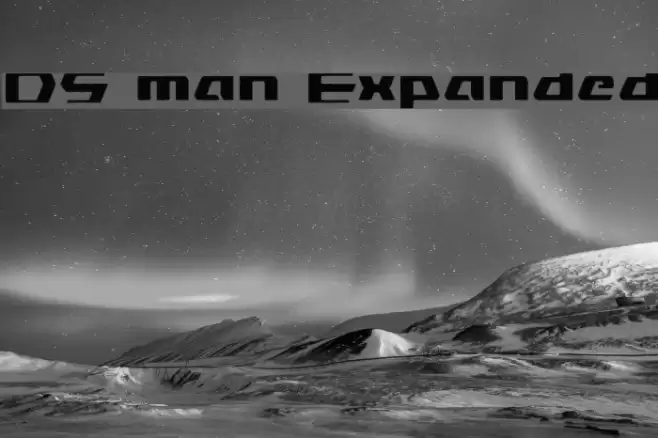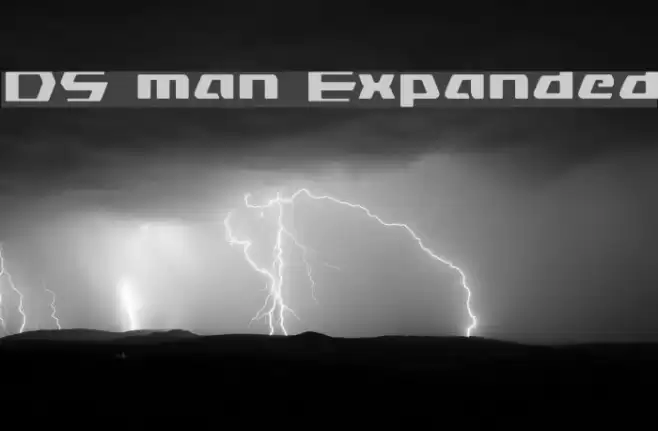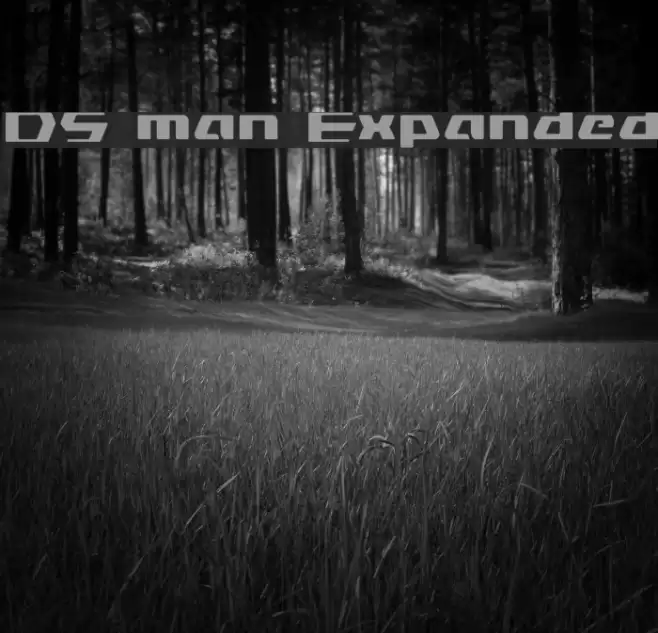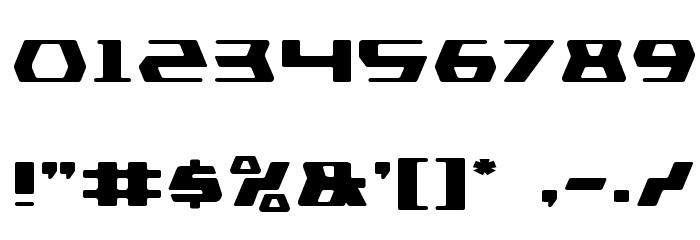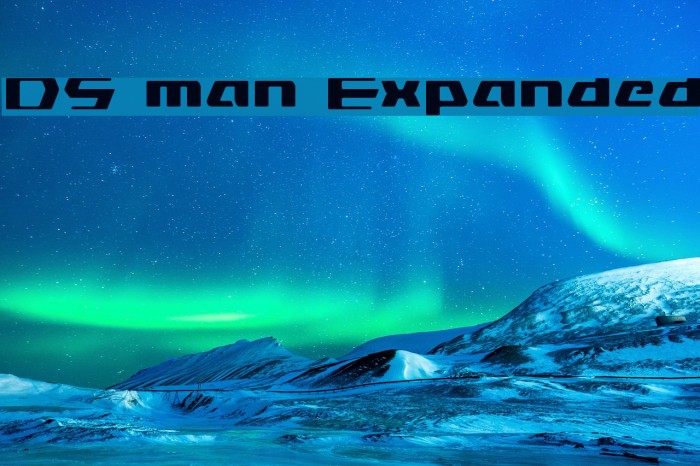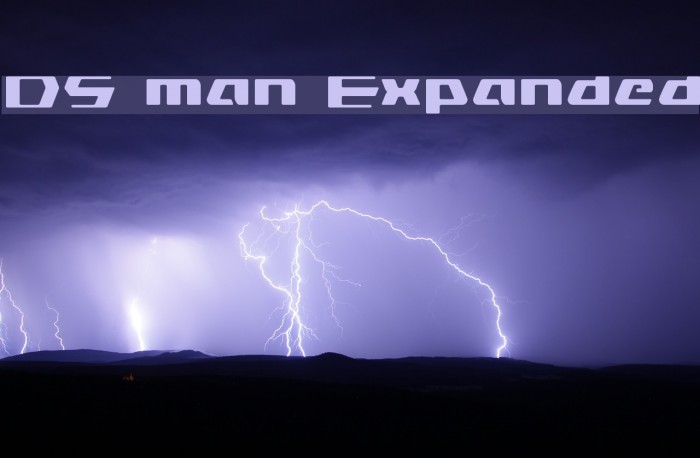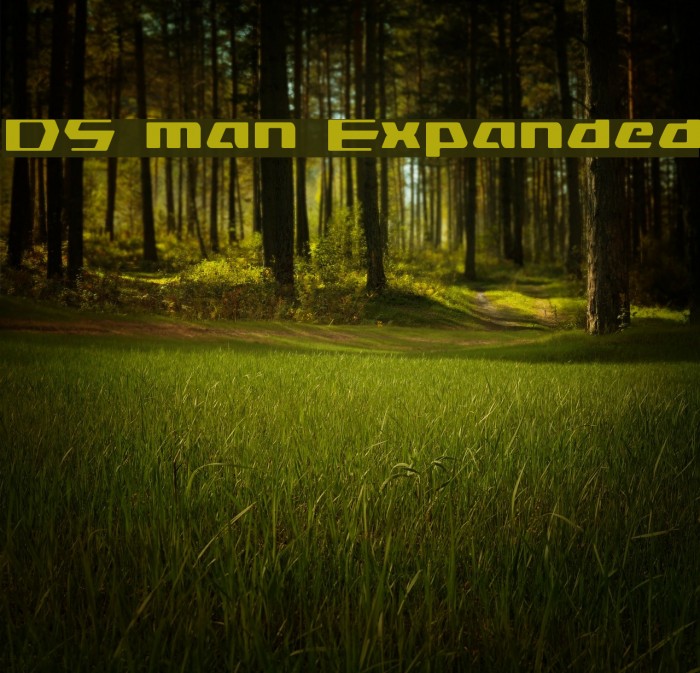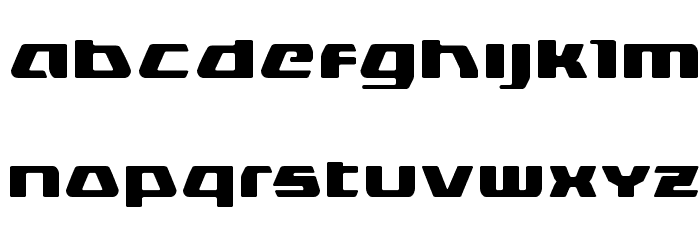
DS man Expanded Font
DS man Expanded Description
This font features a bold and futuristic design with a distinct geometric style. The characters are constructed with sharp angles and a blocky appearance, giving it a strong and impactful presence. The uppercase and lowercase letters maintain a consistent width, enhancing its uniformity. The numerals and special characters follow the same design principles, ensuring a cohesive look across all elements. Its unique style makes it suitable for projects that require a modern and edgy aesthetic.
A bold, geometric font with a futuristic and impactful design from Uncategorized fonts.
- Proposed Projects: Ideal for technology branding, sci-fi themed posters, video game titles, and modern advertising campaigns.